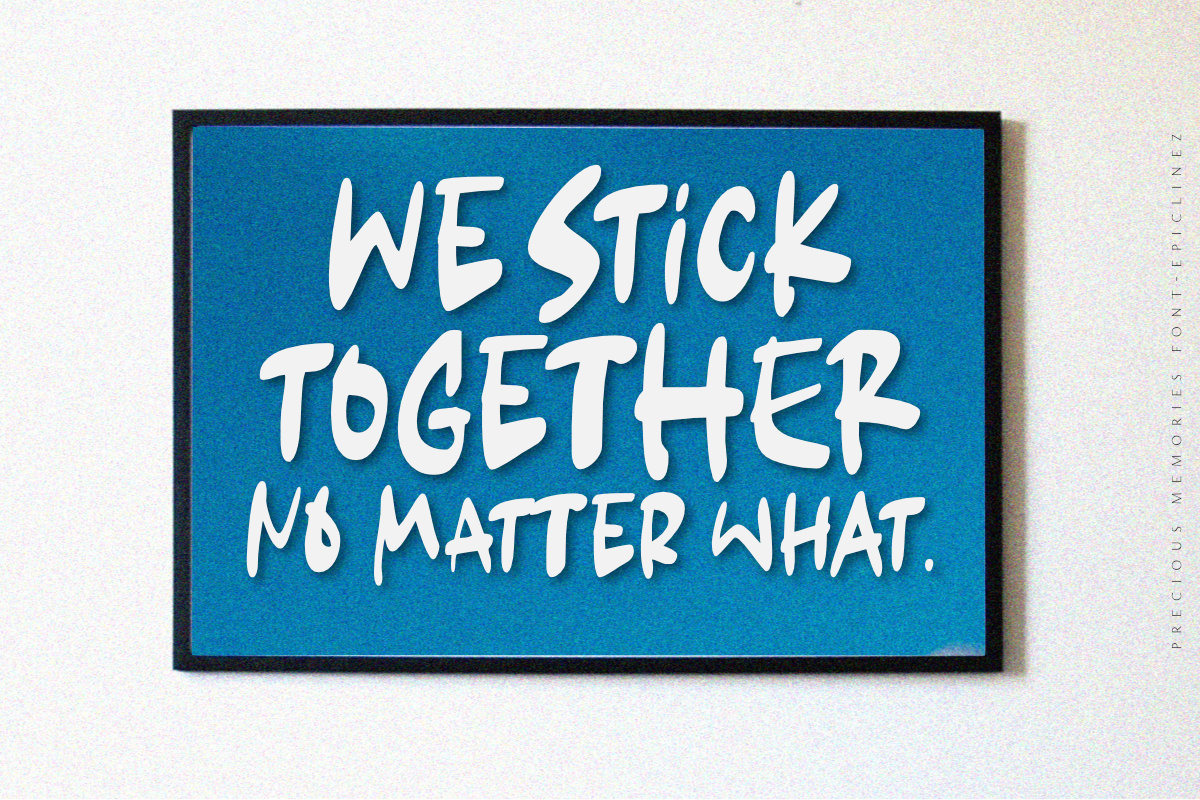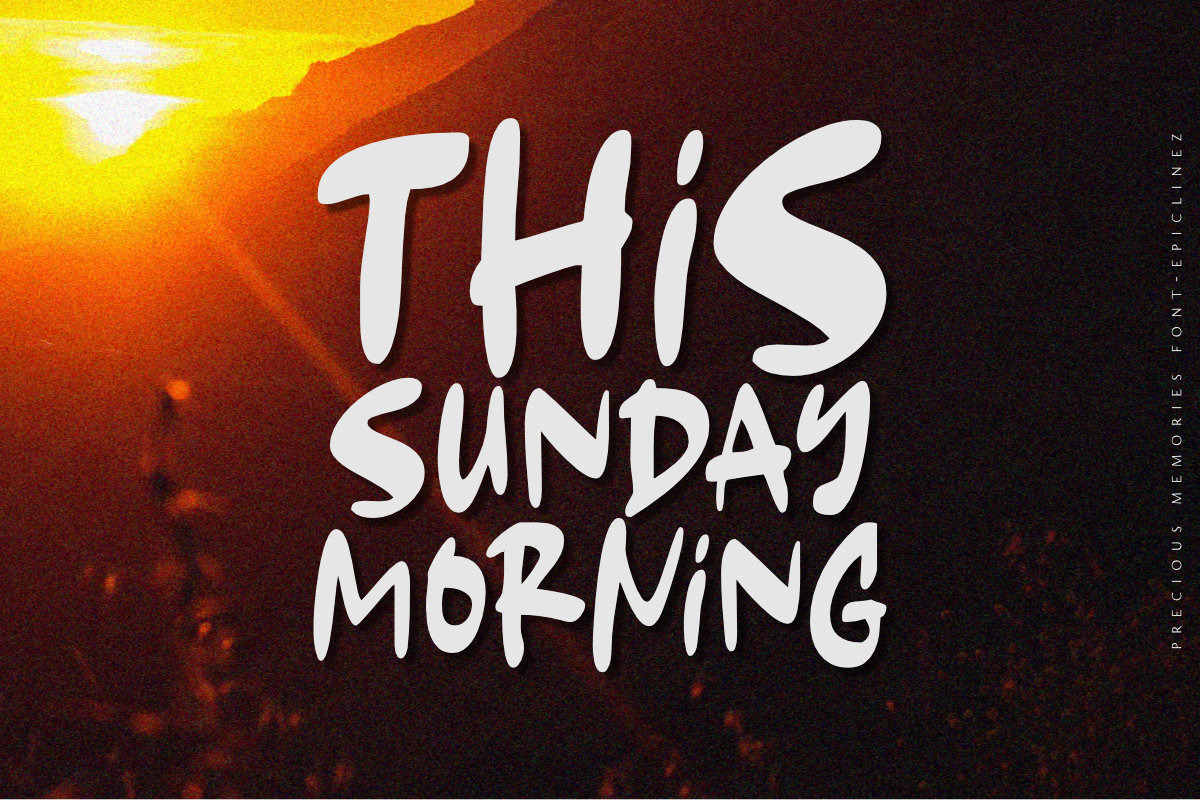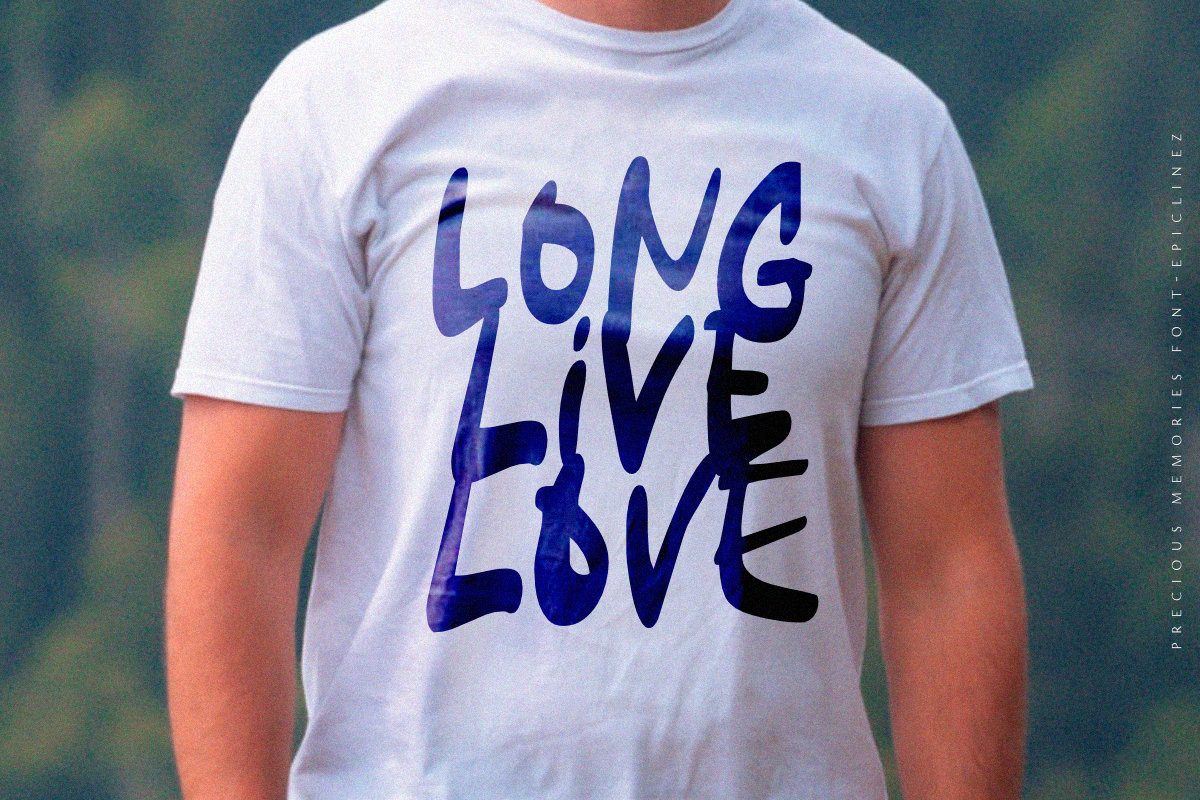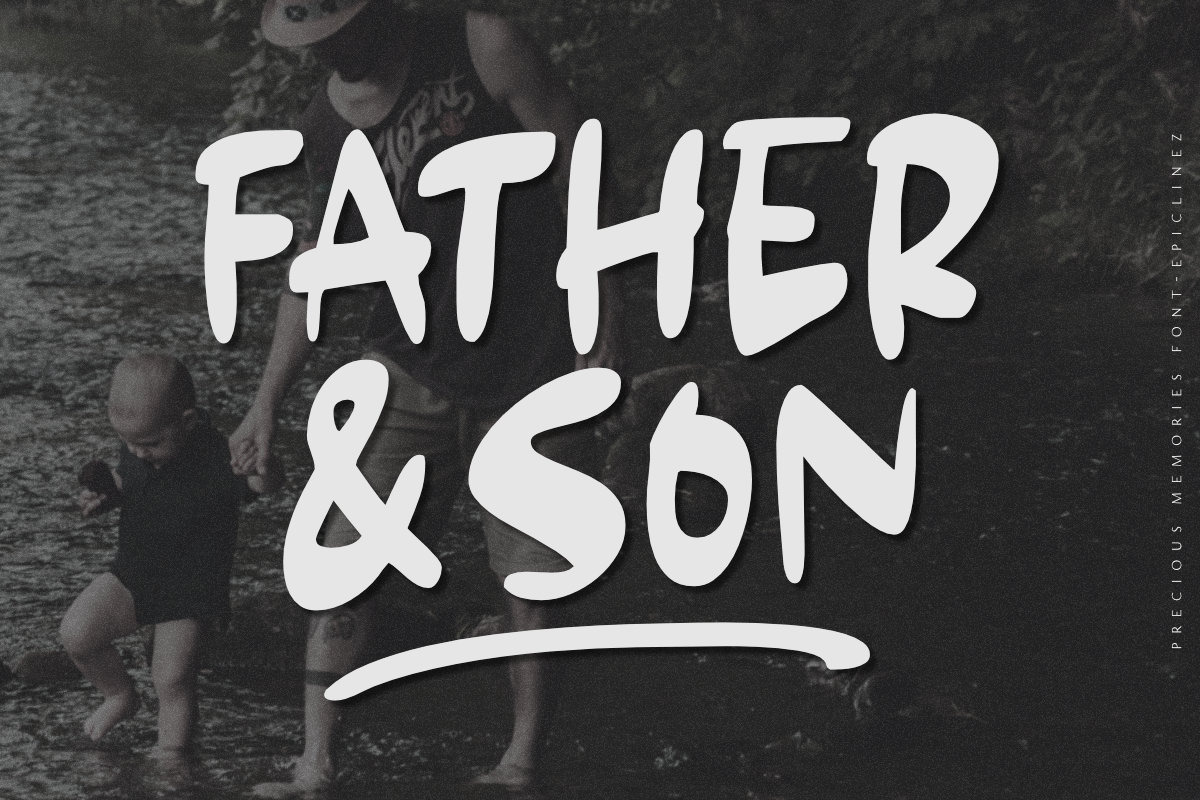
Precious Memories
Precious Memories is a cool-looking display font. Bold and a little bit quirky, this font is the perfect fit for all of your logos, branding, social media, and crafty DIY projects.